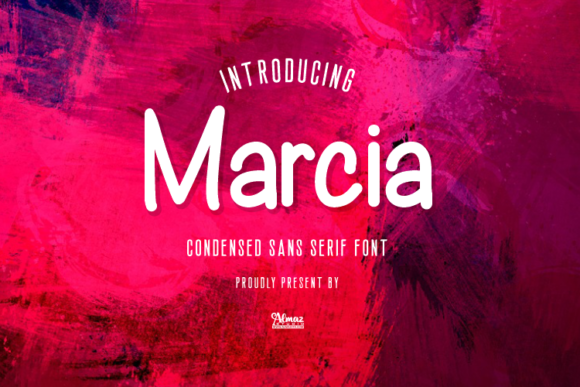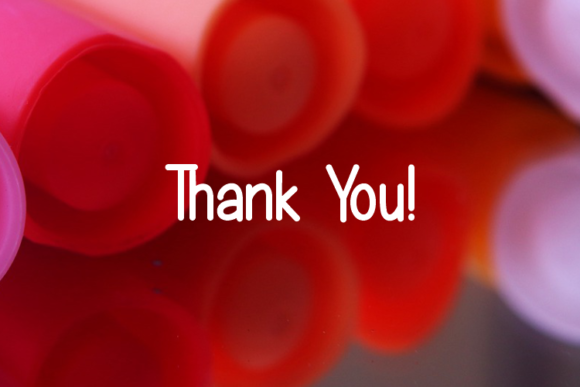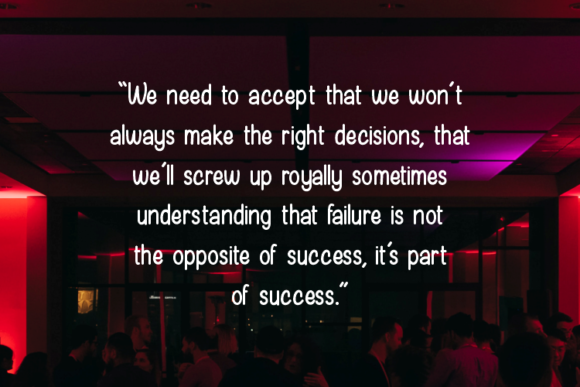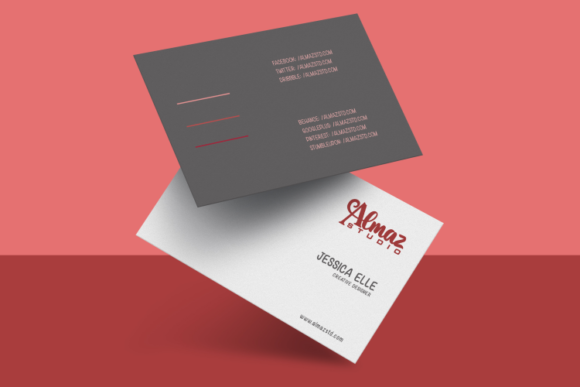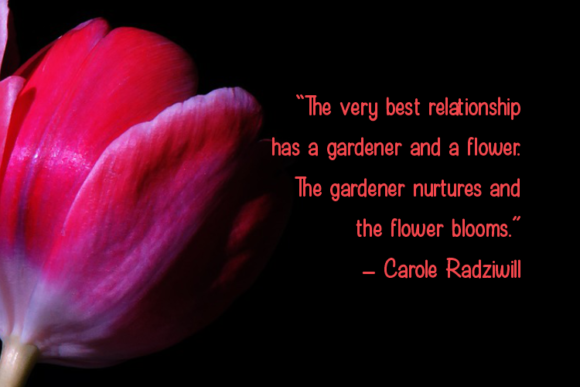
Marcia Font
About Marcia Font
Marcia is a simple and clean handwritten font. No matter the topic, this font will be an incredible asset to your fonts’ library, as it has the potential to elevate any creation.